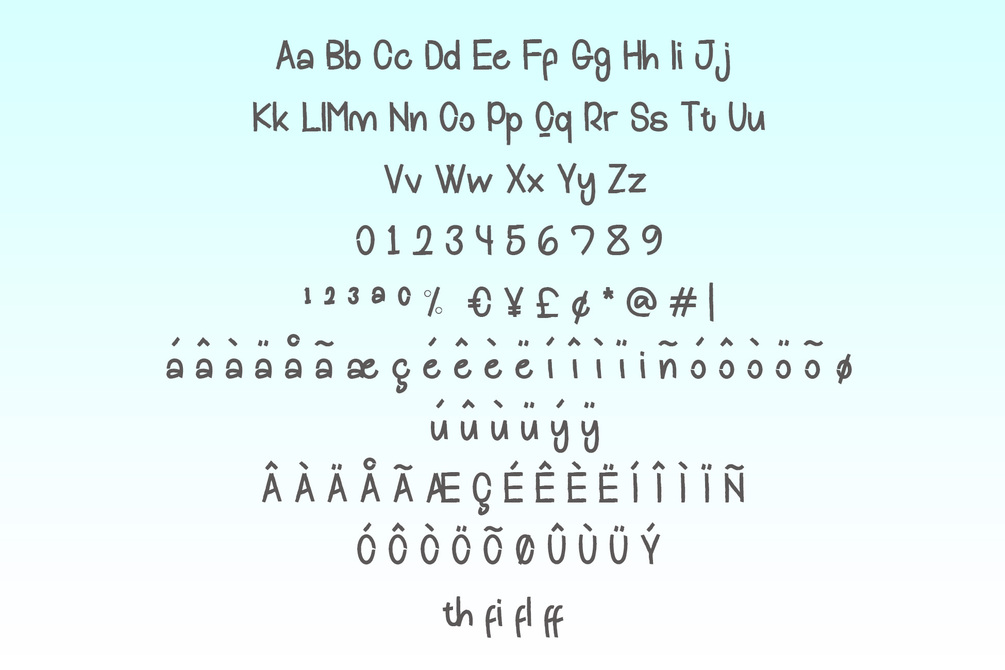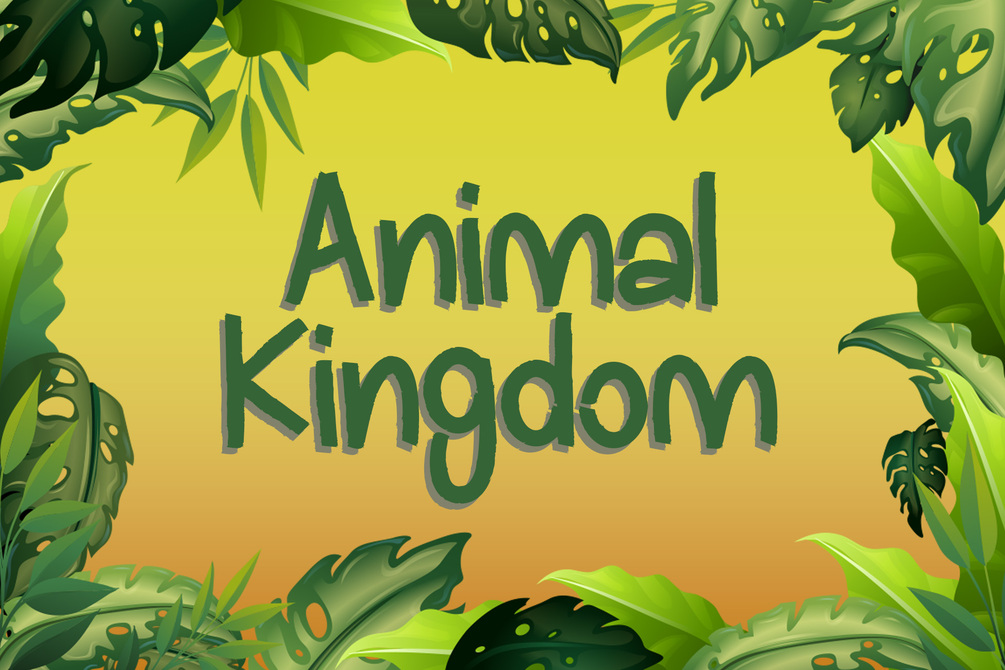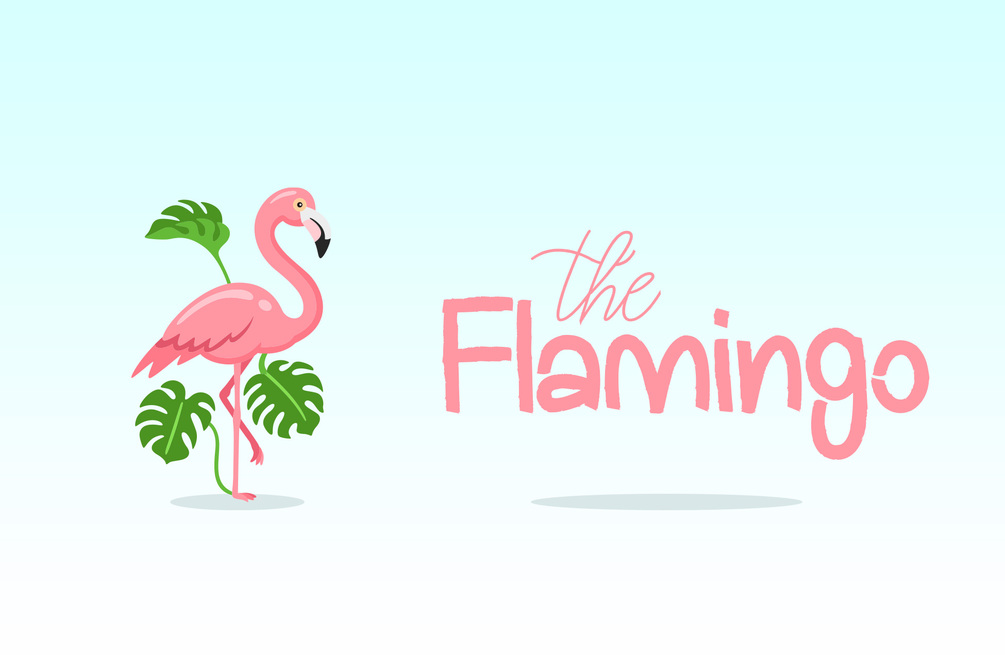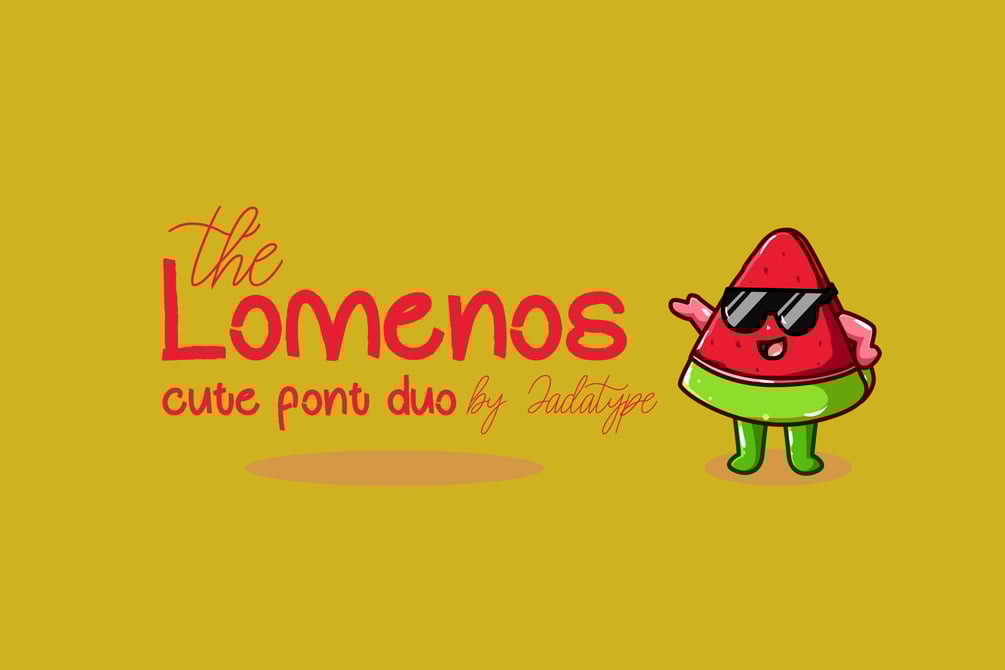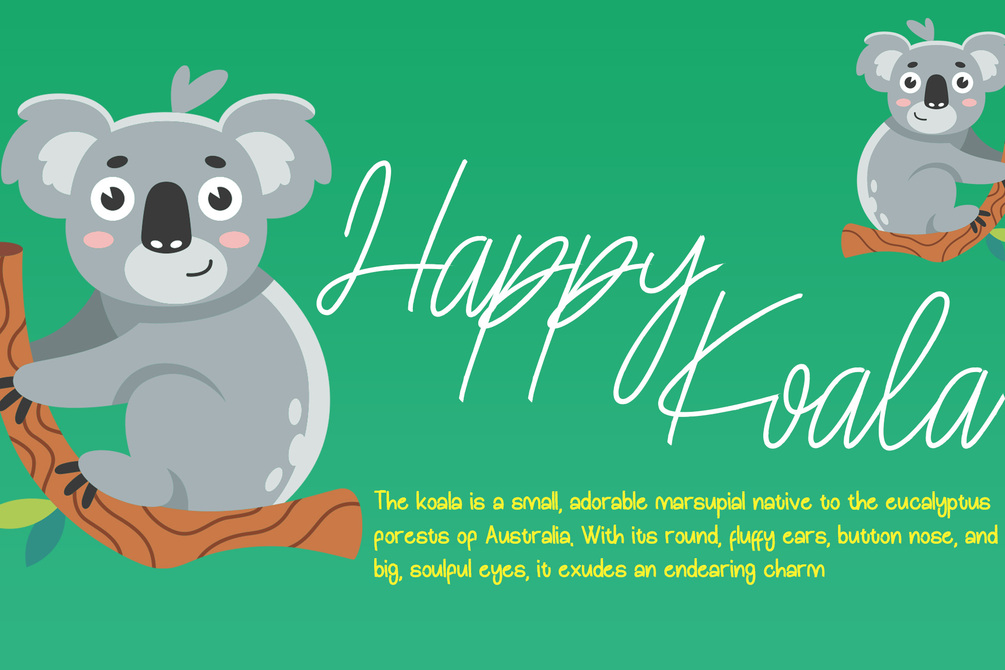
The Lomenos Font Duo
The Lomenos is a duo font that comes with script and display style. suitable for product, Branding, social media, logotype and so on. contains standard English letters, numbers, punctuation, and several accents that support multilingualism.